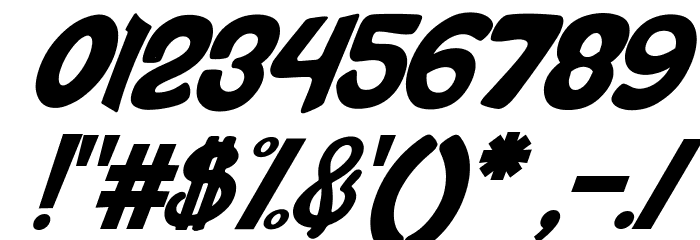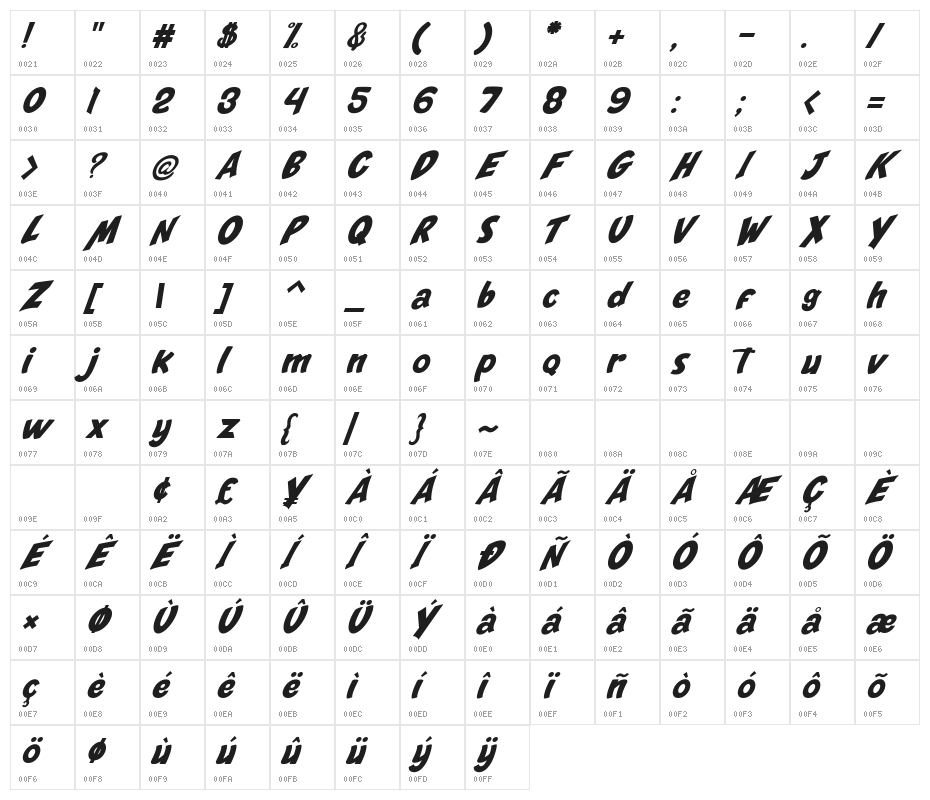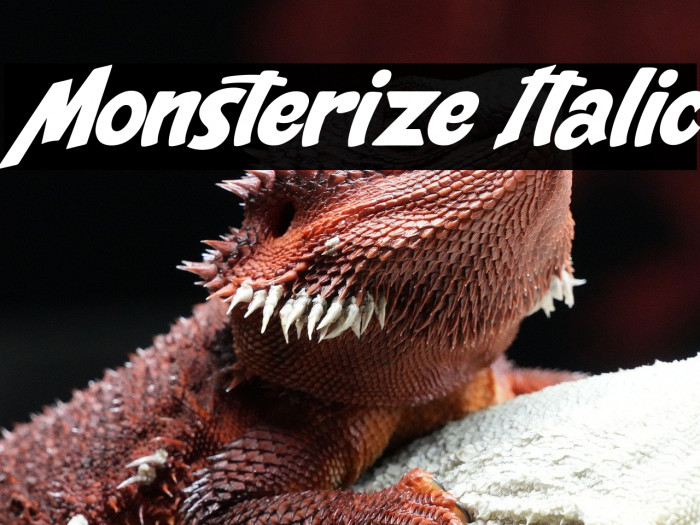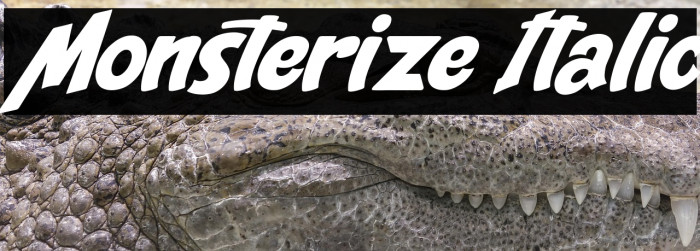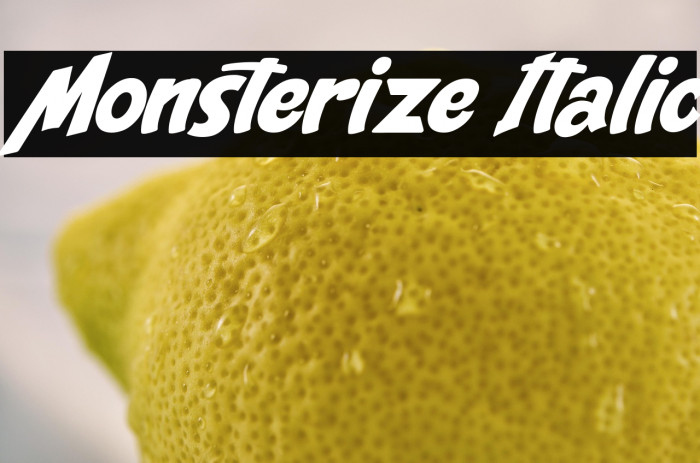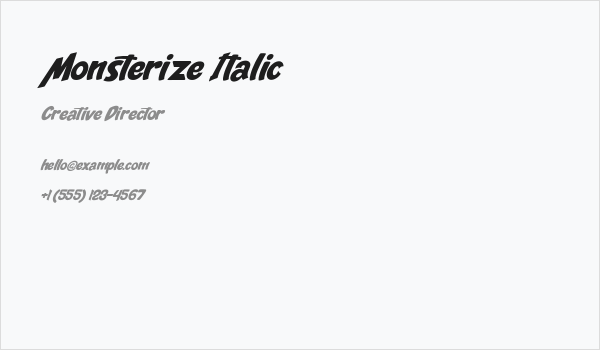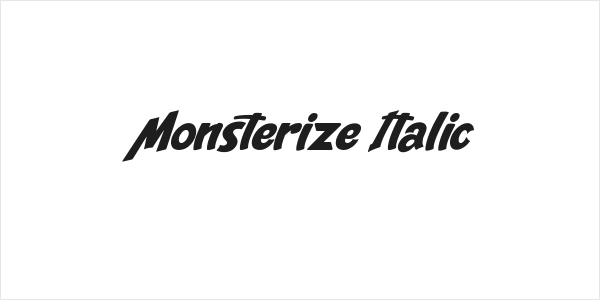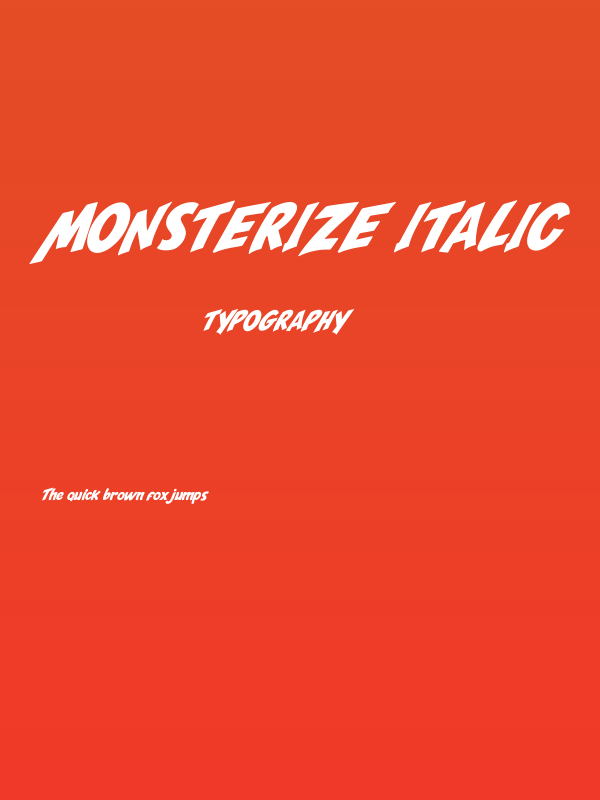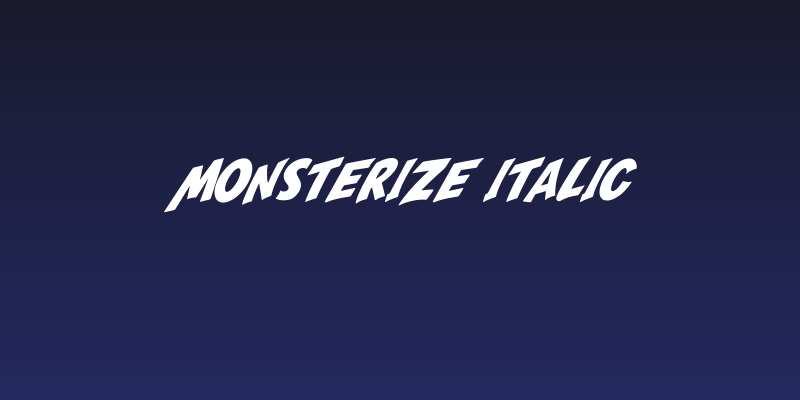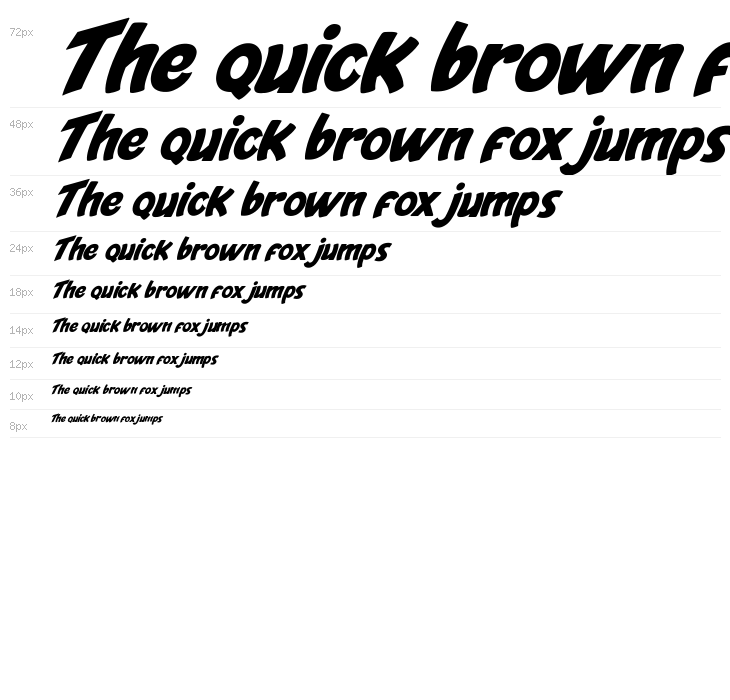
Monsterize Italic Font
Monsterize Italic Description
This font features a bold and dynamic style with a strong italic slant, giving it a sense of movement and energy. The characters are thick and robust, with a slightly condensed appearance that enhances its impactful presence. The strokes are smooth and rounded, contributing to a modern and playful aesthetic. The font maintains a consistent weight throughout, ensuring readability while adding a touch of flair. Its boldness and slant make it ideal for attention-grabbing designs, where a sense of urgency or excitement is desired. The special characters are equally bold and maintain the same dynamic style, ensuring cohesion across all text elements.